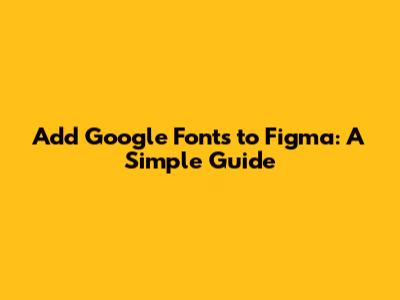
Add Google Fonts To Figma: A Simple Guide
Hey guys! Ever wondered how to make your Figma designs pop with those awesome Google Fonts? Well, you're in the right place! Adding Google Fonts to Figma is super easy and can really elevate your design game. Let's dive into how you can do it, step by step.
Why Use Google Fonts in Figma?
Before we get started, let's quickly chat about why using Google Fonts in Figma is a fantastic idea. First off, Google Fonts are free! Yes, you heard that right. You get access to a vast library of fonts without spending a dime. This is a huge win for designers on a budget or those just starting out.
Secondly, Google Fonts are incredibly diverse. Whether you're looking for something classic, modern, quirky, or professional, you'll find a font that fits your project perfectly. This variety allows you to express your creativity and tailor your designs to exactly what you envision.
Thirdly, using Google Fonts ensures consistency across platforms. Because Google Fonts are web-based, they'll look the same whether you're viewing your design on your computer, tablet, or smartphone. This consistency is crucial for maintaining a professional and polished look.
Finally, integrating Google Fonts with Figma is seamless. Figma makes it super easy to access and use Google Fonts, so you don't have to jump through hoops to get the fonts you want. It's all about making your design process smoother and more efficient.
Step-by-Step Guide to Adding Google Fonts in Figma
Okay, let's get to the good stuff! Here's a detailed guide on how to add Google Fonts to Figma:
Step 1: Open Figma
First things first, fire up Figma. If you don't have it already, head over to the Figma website and create a free account. Once you're in, either open an existing project or create a new one. This will be your canvas for experimenting with those lovely Google Fonts.
Step 2: Select the Text Tool
Next, you'll want to select the Text tool. You can find it in the toolbar at the top of your screen. It looks like a capital 'T'. Click on it, and then click anywhere on your canvas to create a text box. Type in some sample text so you can see how the different fonts look.
Step 3: Access the Font Menu
With your text box selected, look over to the right-hand side of your screen. You should see a panel with various options for your text. The font menu is usually at the top, displaying the current font being used. Click on the font name to open the font selection menu.
Step 4: Browse or Search for Google Fonts
In the font selection menu, you'll see a list of fonts that are already available in Figma. To access Google Fonts, simply scroll down. You should see a section labeled "Google Fonts." Here, you can browse through the extensive collection of fonts. Alternatively, if you know the name of the font you want, you can use the search bar to quickly find it.
Step 5: Select Your Desired Font
Once you've found a font that you like, click on it to select it. The font will instantly be applied to your selected text box. Play around with different fonts until you find the perfect one for your design. Don't be afraid to experiment – that's what it's all about!
Step 6: Adjust Font Styles and Weights
Many Google Fonts come with different styles and weights, such as bold, italic, light, and medium. You can adjust these settings in the same right-hand panel where you selected the font. Experiment with different styles and weights to achieve the desired look for your text. This can make a huge difference in how your design feels.
Troubleshooting Common Issues
Sometimes, things don't go as smoothly as we'd like. Here are a few common issues you might encounter and how to fix them:
Font Not Appearing
If you're searching for a Google Font and it's not showing up, first make sure you're connected to the internet. Figma needs an internet connection to access Google Fonts. If you're online and the font still isn't appearing, try refreshing Figma. Sometimes, a simple refresh can do the trick.
Font Rendering Incorrectly
Occasionally, a font might render incorrectly, appearing pixelated or distorted. This can be due to a variety of reasons, such as browser issues or font loading problems. Try clearing your browser's cache and cookies, or try using a different browser. If the problem persists, it could be an issue with the font itself. Try using a different font or contacting Figma support for assistance.
Font Styles Not Loading
If you're trying to use a specific style or weight of a Google Font and it's not loading, make sure that the font actually supports that style. Some fonts only come in regular weight, while others offer a wide range of options. Check the Google Fonts website to see which styles are available for your chosen font.
Tips for Choosing the Right Google Fonts
Choosing the right font can make or break your design. Here are a few tips to help you select the perfect Google Fonts for your projects:
Conclusion
So there you have it! Adding Google Fonts to Figma is a breeze, and it opens up a world of possibilities for your designs. By following these simple steps and tips, you can create stunning typography that elevates your projects and makes them truly stand out. Happy designing, and may your fonts always be fabulous!
Remember: Experiment, have fun, and don't be afraid to try new things. The world of typography is vast and exciting, so dive in and explore! Good luck, and happy designing!